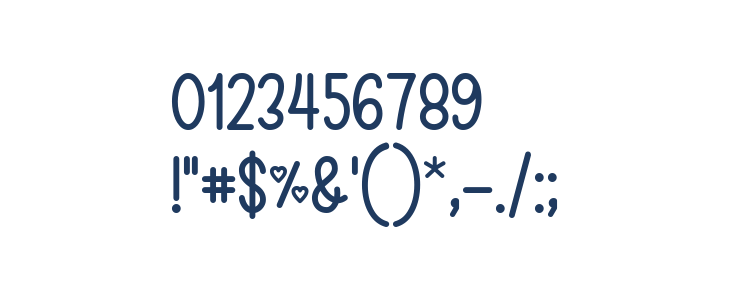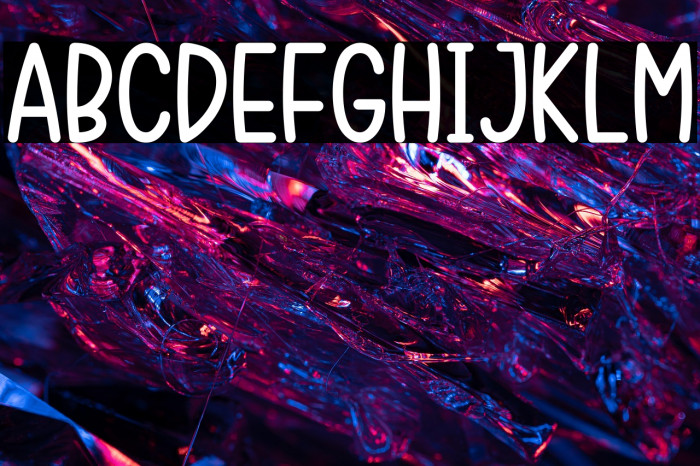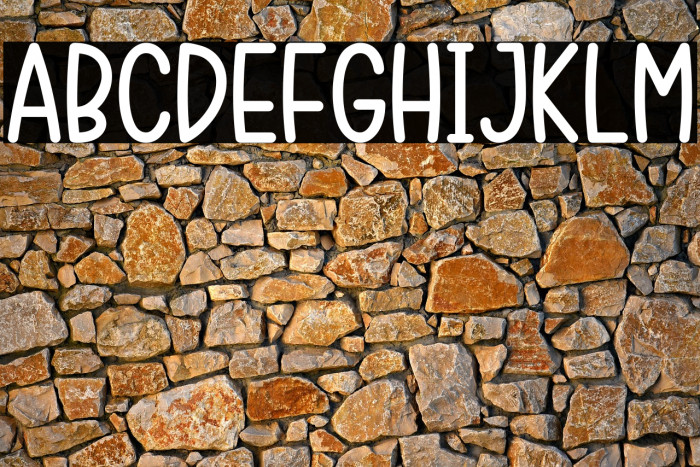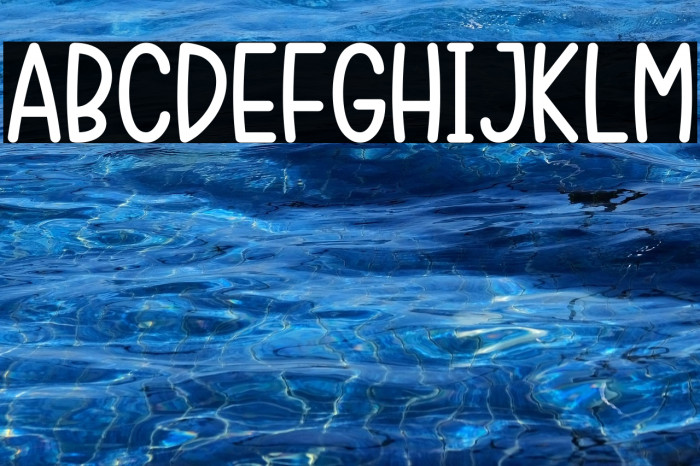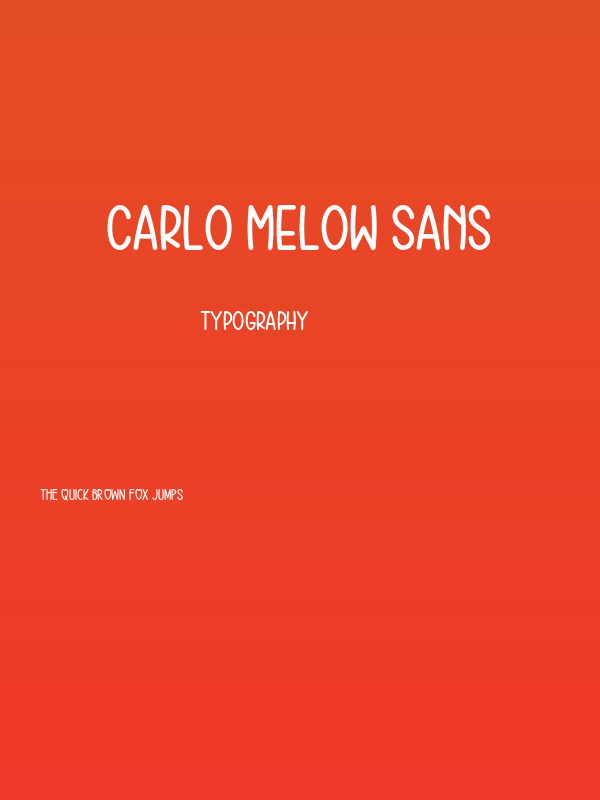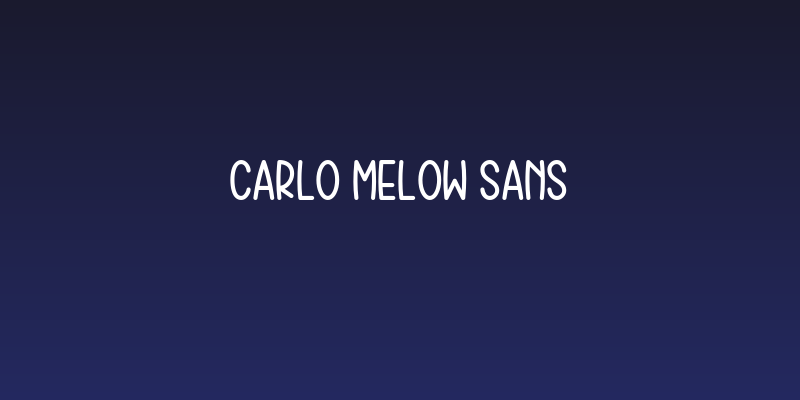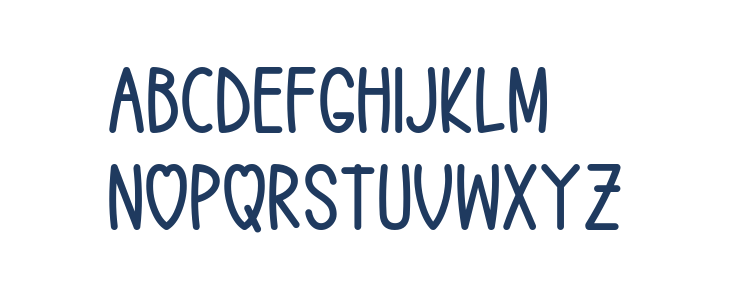
Carlo Melow Sans Font
Carlo Melow Sans Description
This font features a playful and rounded style, characterized by its smooth, flowing lines and consistent stroke width. The letters are slightly elongated, giving them a whimsical and friendly appearance. The uppercase and lowercase characters maintain a uniform height, contributing to a harmonious and balanced look. The numerals are clear and easy to read, matching the overall aesthetic of the alphabet. Special characters are included, each designed with the same rounded and approachable style. This font is ideal for projects that require a touch of fun and creativity, making it suitable for children's books, playful branding, and casual invitations.
| Proposed Projects | Children's books, playful branding, casual invitations, creative posters. |